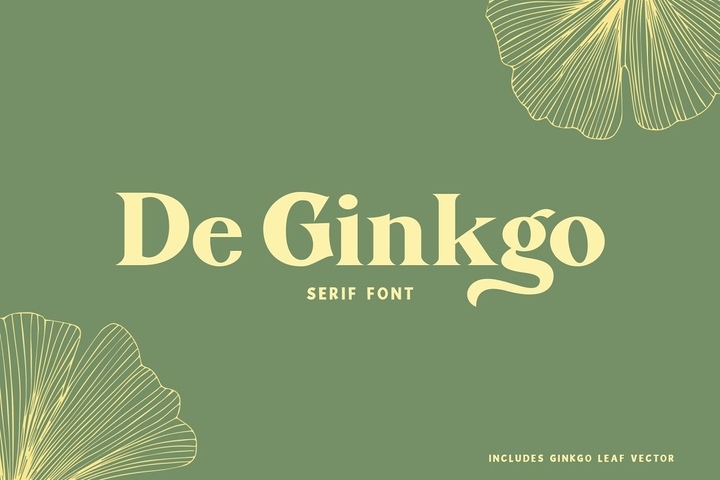
De Ginkgo, a Serif Font
De Ginkgo, a Serif Font is perfect for botanical publications, environmental organization branding, natural wellness centers, organic product packaging, eco-friendly lifestyle campaigns, botanical garden signage, nature conservation materials, herbal medicine branding, sustainable business identities, and mindful living publications.
What makes De Ginkgo, a Serif Font so exciting is its extraordinary ability to embody the timeless wisdom and natural resilience of the ancient ginkgo tree through elegant serif letterforms that seem to carry millennia of natural heritage and botanical grace. This organic typeface captures the essence of nature's enduring beauty and environmental consciousness with characters that radiate the strength, longevity, and natural harmony that the ginkgo tree symbolizes across cultures and centuries. The font's botanical design elements perfectly balance classical serif tradition with organic inspiration, creating an indispensable tool that communicates natural wisdom, environmental consciousness, and sustainable elegance, making it essential for brands and organizations celebrating the connection between human culture and natural heritage.
De Ginkgo, a Serif Font comes in multiple font families including Regular, Bold, Light, Italic, Bold Italic, Organic, Natural, and Heritage variations. Each family member maintains the core botanical characteristics while offering different natural elegance levels and stylistic approaches to suit various environmental and wellness design requirements.
The botanical precision in De Ginkgo, a Serif Font makes it particularly effective for environmental organizations and wellness industries where conveying natural authenticity and ecological consciousness is crucial for connecting with audiences who appreciate genuine environmental stewardship and sustainable living practices. Its organic letterforms work beautifully across both traditional print and contemporary digital applications, maintaining consistent natural appeal and sophisticated environmental presentation.
Environmental branding professionals appreciate how De Ginkgo, a Serif Font transforms ordinary communications into elegant expressions of natural wisdom and environmental consciousness. The typeface's organic character set includes special botanical symbols, environmental elements, and natural features that enhance the overall ecological atmosphere of any environmentally-focused project.
For creative professionals serving environmental organizations, wellness centers, and sustainable lifestyle brands, De Ginkgo, a Serif Font serves as the perfect foundation for establishing memorable visual identities that capture the essential qualities of natural wisdom, environmental consciousness, and botanical elegance that define successful brands celebrating the enduring connection between human culture and natural heritage in an increasingly environmentally-aware world where sustainability matters most.